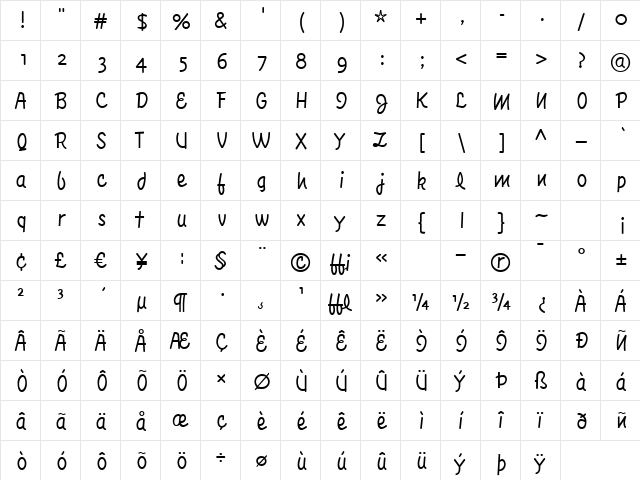
ElliottsVenusDioxide Regular
Design Context for ElliottsVenusDioxide Typeface
ElliottsVenusDioxide is a composed and adaptable typeface that performs quietly and consistently across a wide range of design contexts.